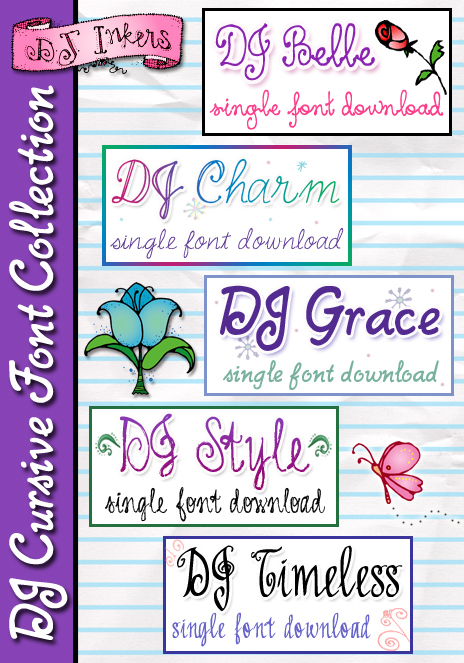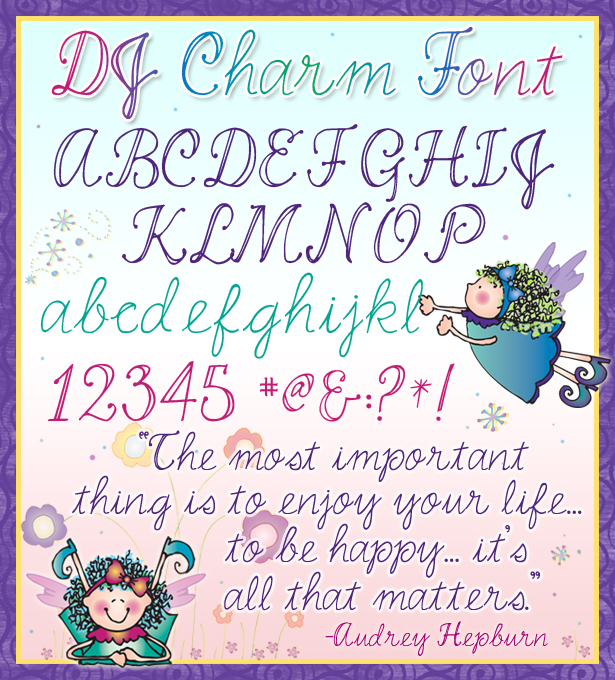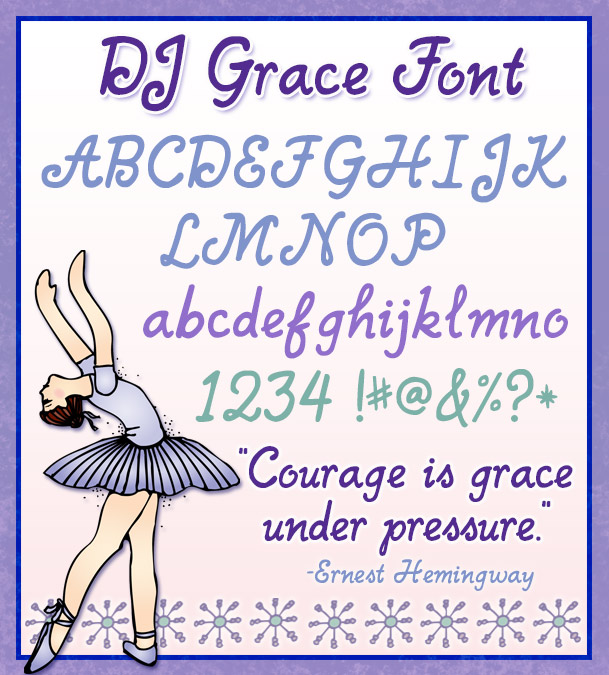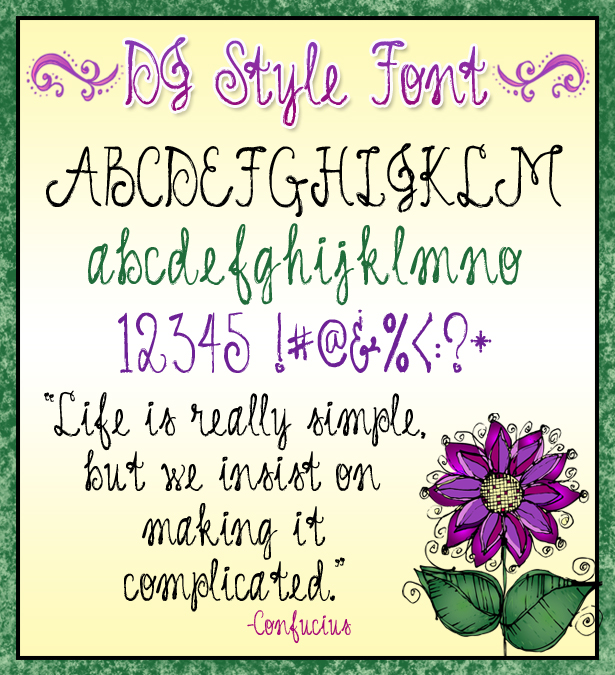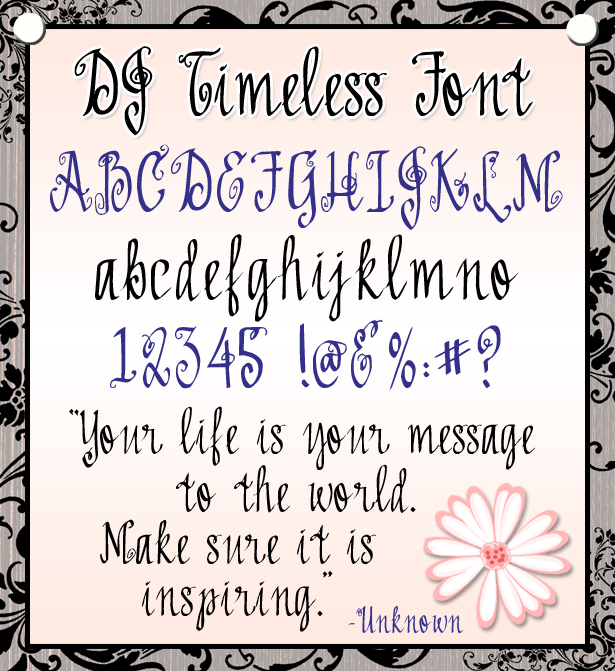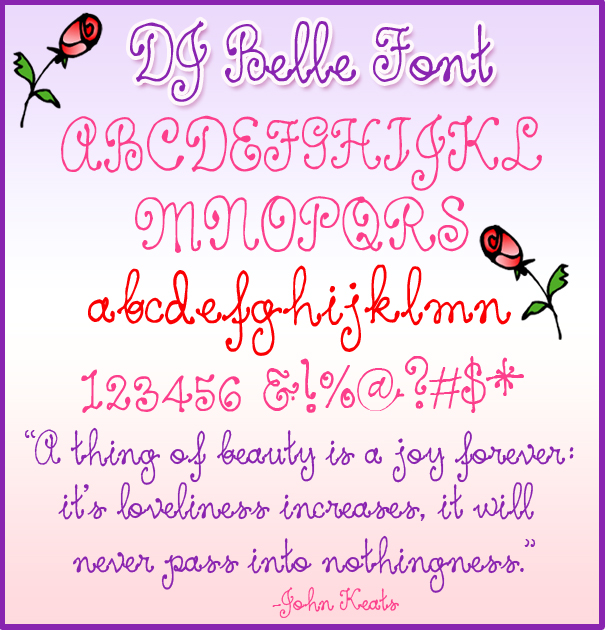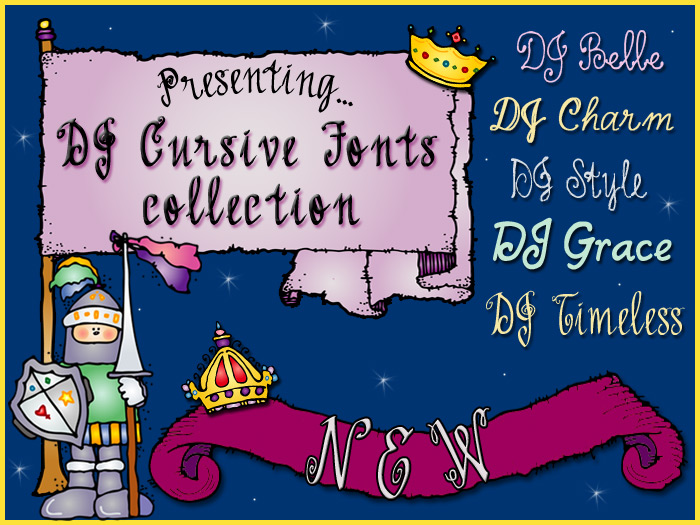
DJ Cursive Fonts Collection Download
Add style & elegance to your creations with our DJ Cursive Fonts Collection! You'll save a bundle when you buy these 5 delightful script fonts together in one package.
Download includes:  DJ Belle, DJ Charm, DJ Grace, DJ Style, and DJ Timeless (also sold separately).  You'll love these beautifully hand-drawn cursive fonts from DJ Inkers. Download instant smiles today!